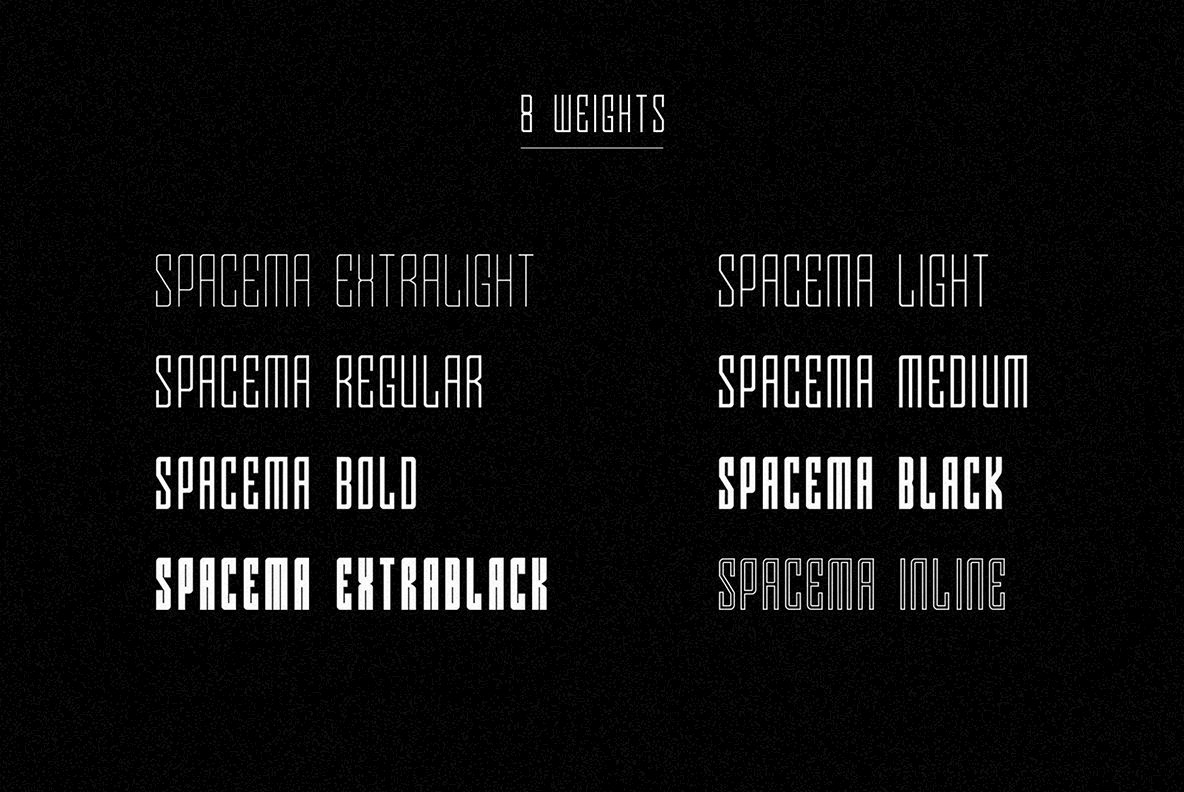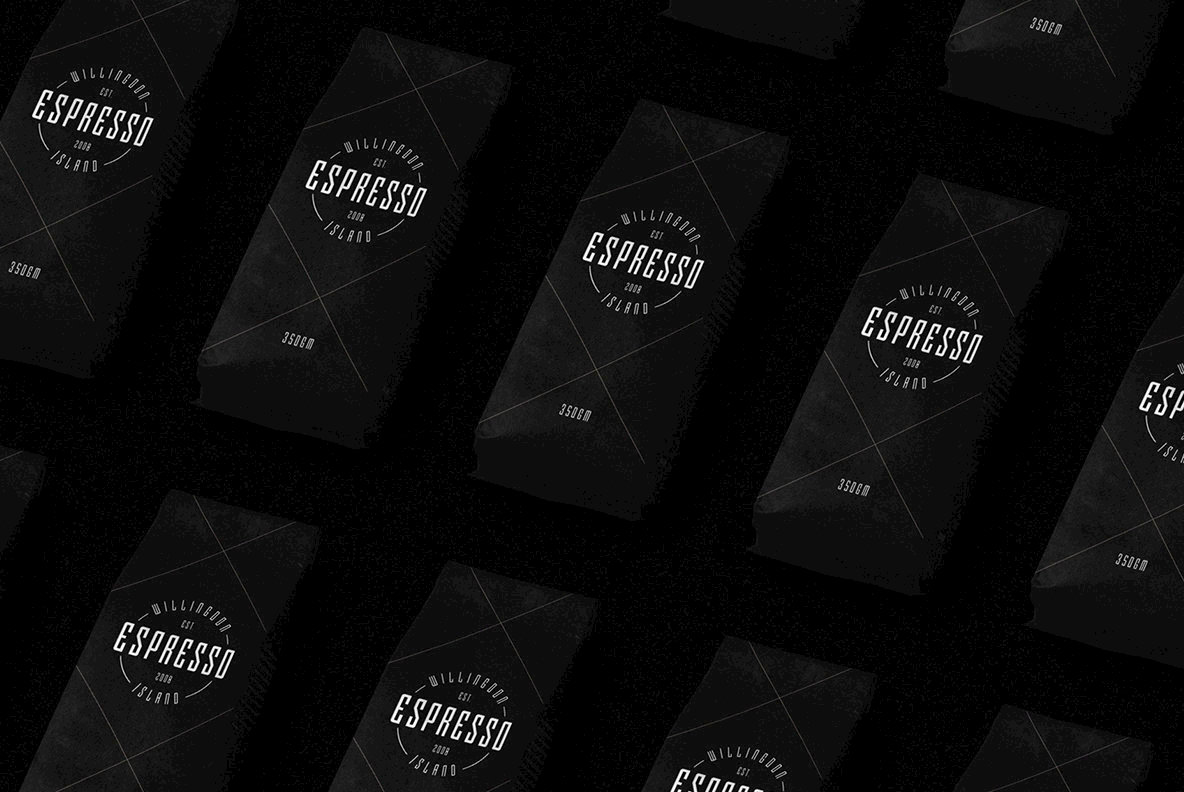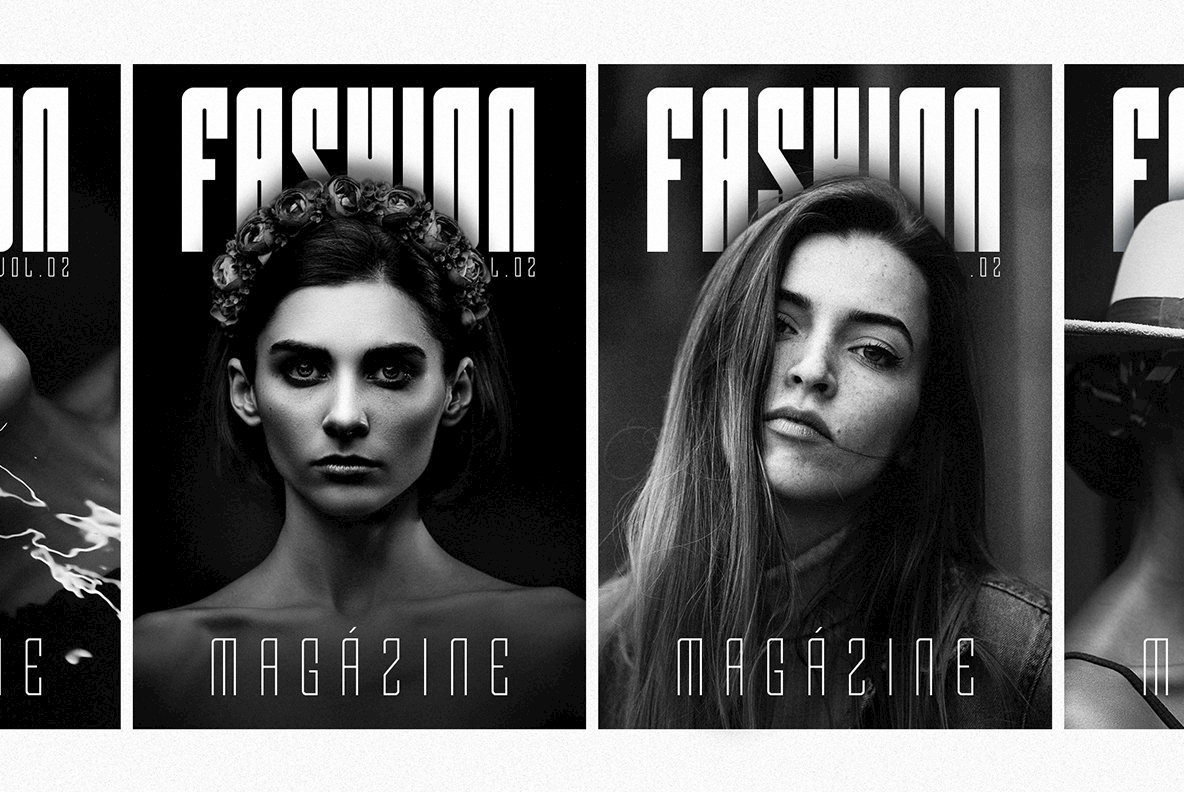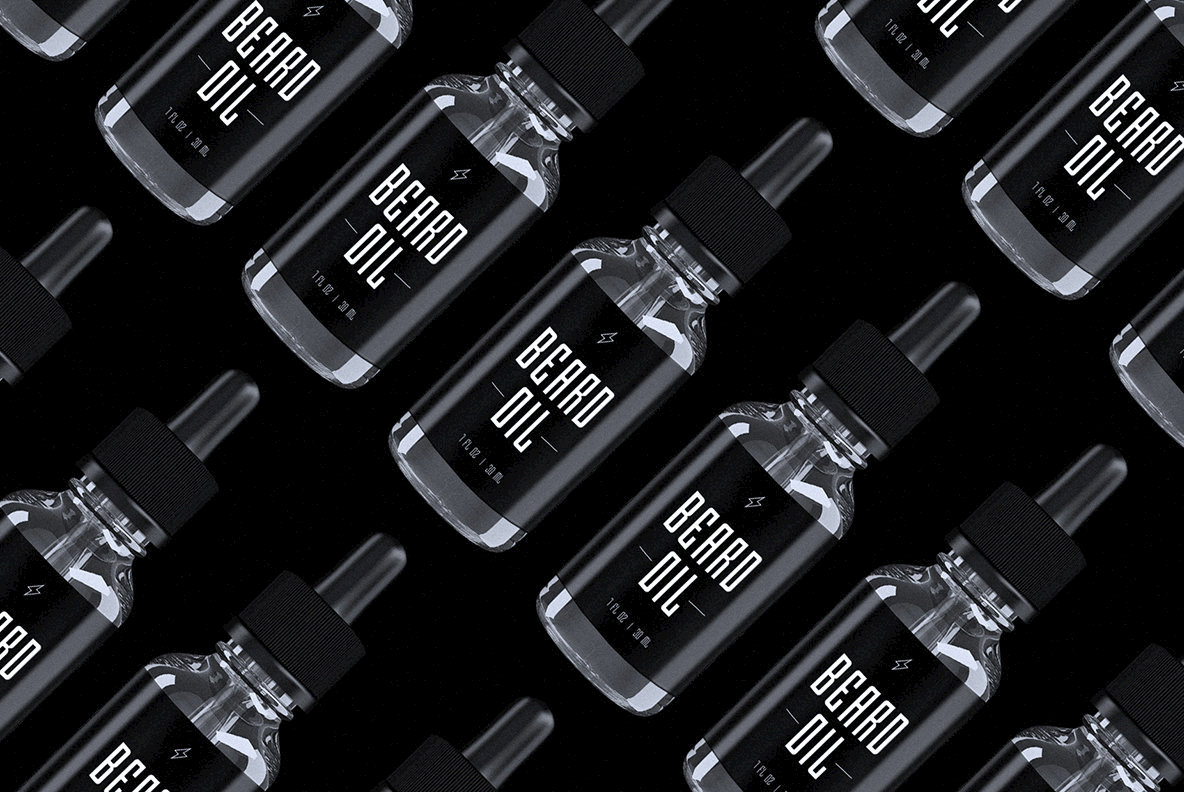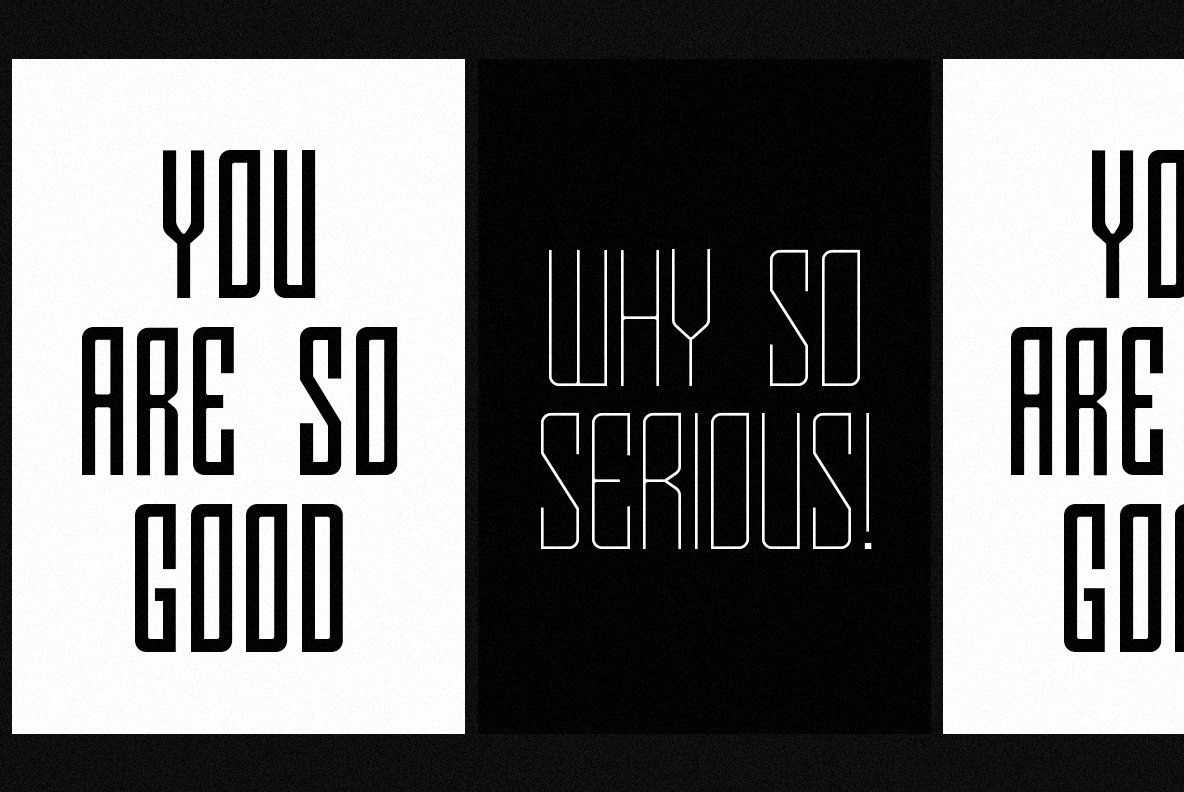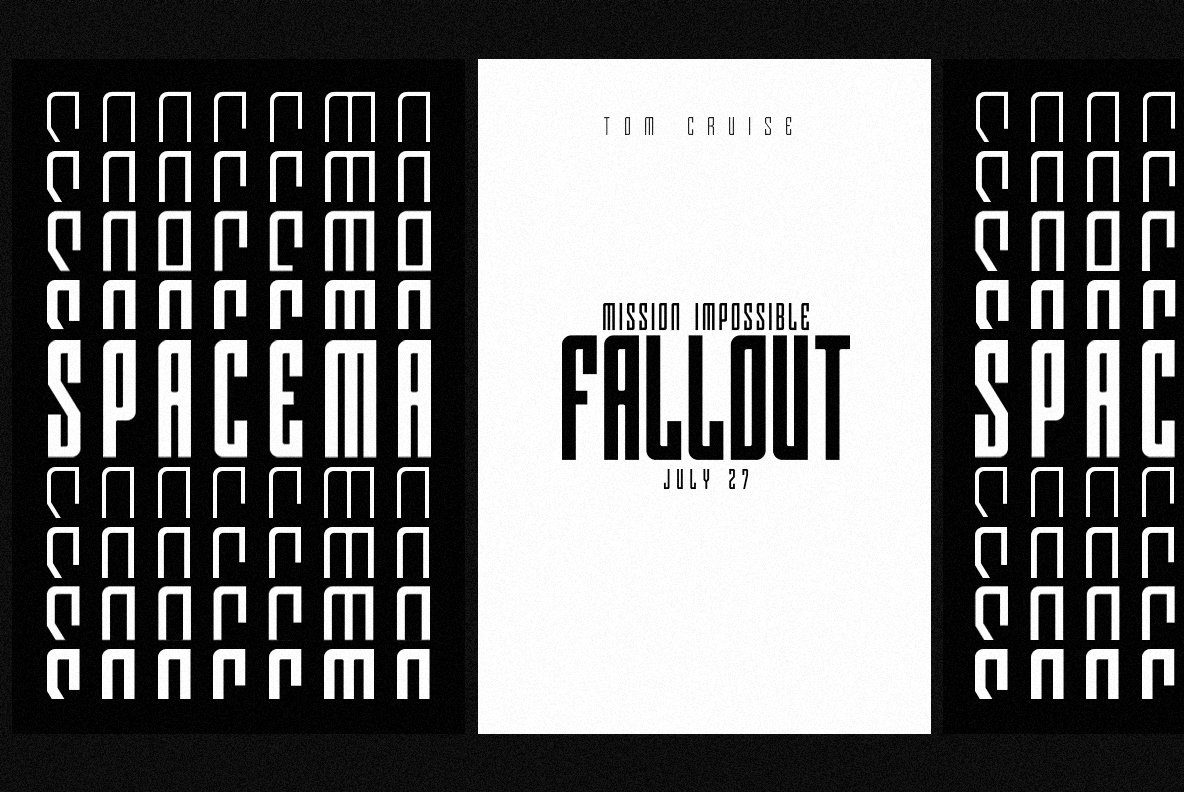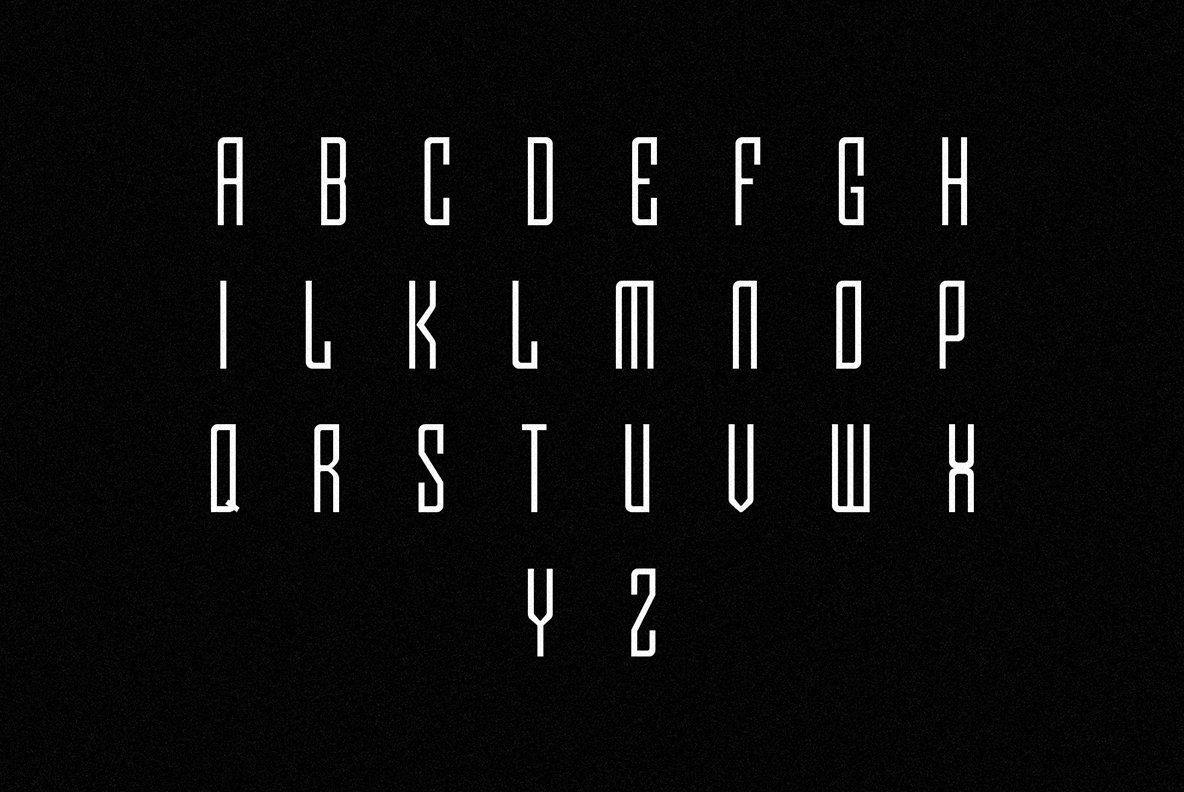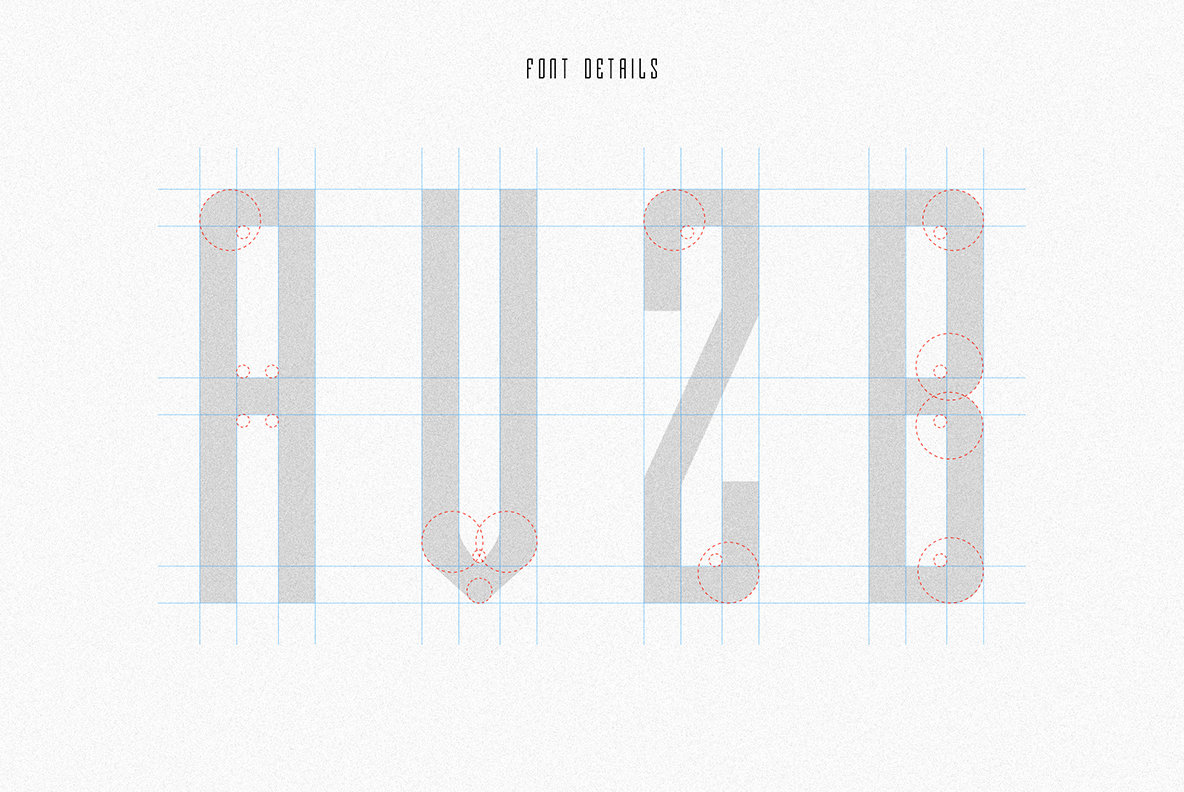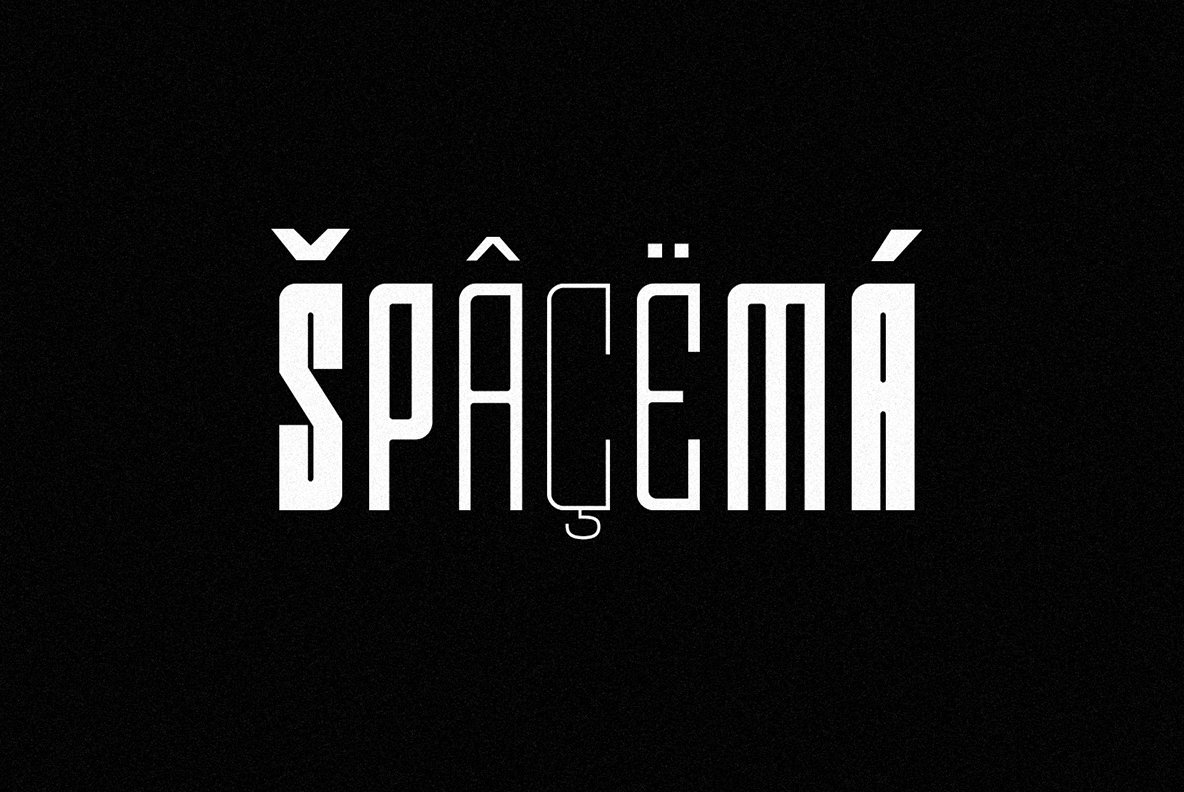
SPACEMA Font
Spacema is a modern condensed typeface with a strong vertical emphasis while maintaining prominent geometric quality to it. With a balance of hard lines and smooth curves, Spacema is an eight-weight typeface which includes uppercase, numerals, extended characters and accents. Each font in this family is impactful dynamic and authoritative and has an individuality while being cohesive. Spacema is suited for many applications like Heading, Posters, Magazines, Packaging, Branding & Identity, Photography, Fashion etc.